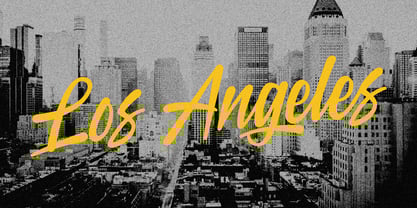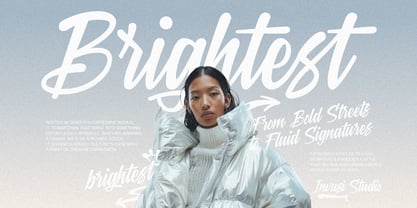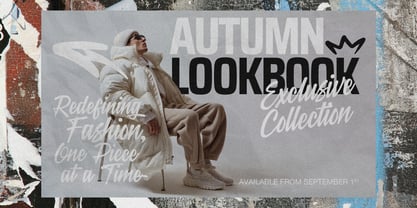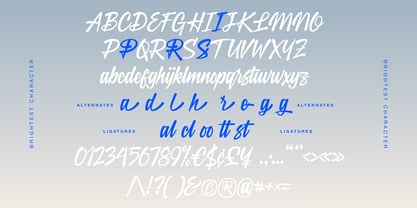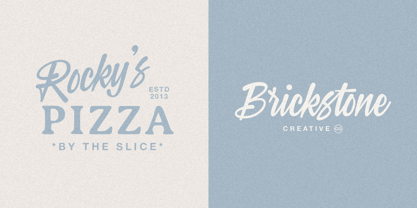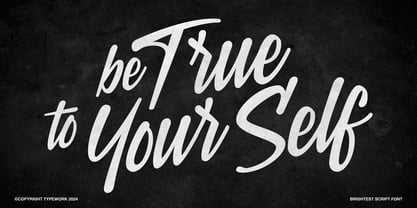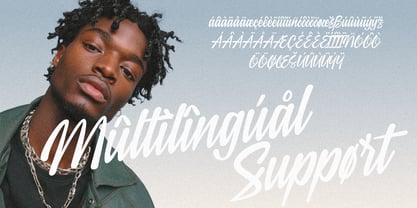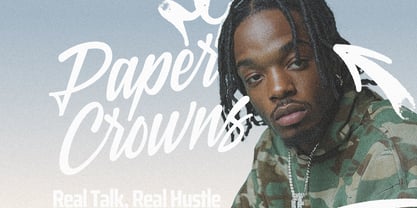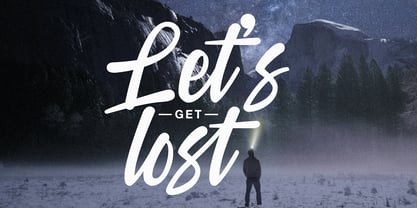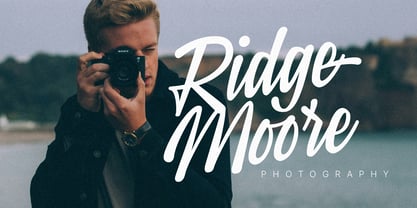
Brightest
by Invasi Studio
The Brightest Font Family was designed by Gha Arizal and published by Invasi Studio. Brightest contains 1 styles.
Are you looking to infuse your designs with the vibrant spirit of street art? Meet Brightest, a script brush font inspired by graffiti, refined into a casual yet striking signature style. This font captures the raw, expressive energy of street culture, transforming it into a versatile tool perfect for modern creative needs.
With its robust feature set including font alternates, ligatures, and multilingual support, Brightest is not only about style but also about functionality. It’s ideal for crafting compelling headlines, vibrant flyers, unique posters, and heartfelt greeting cards. Whether you’re enhancing product packaging or adding a distinct touch to any project, Brightest adapts to a wide range of contexts, channeling the authentic flow of street art into every stroke.